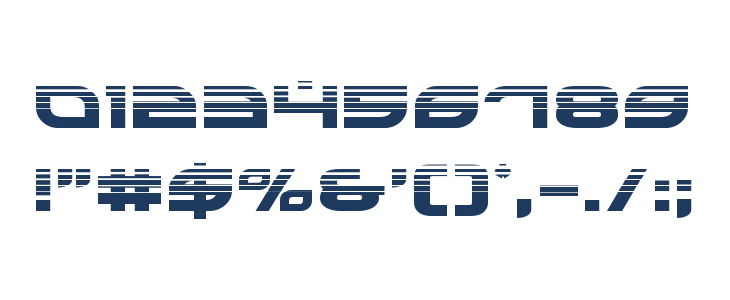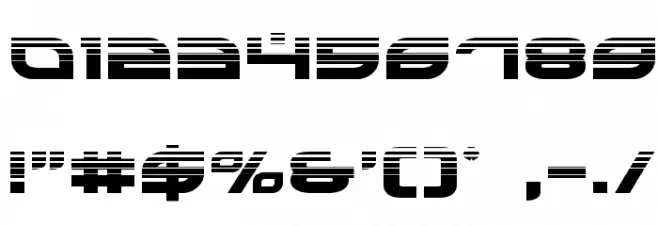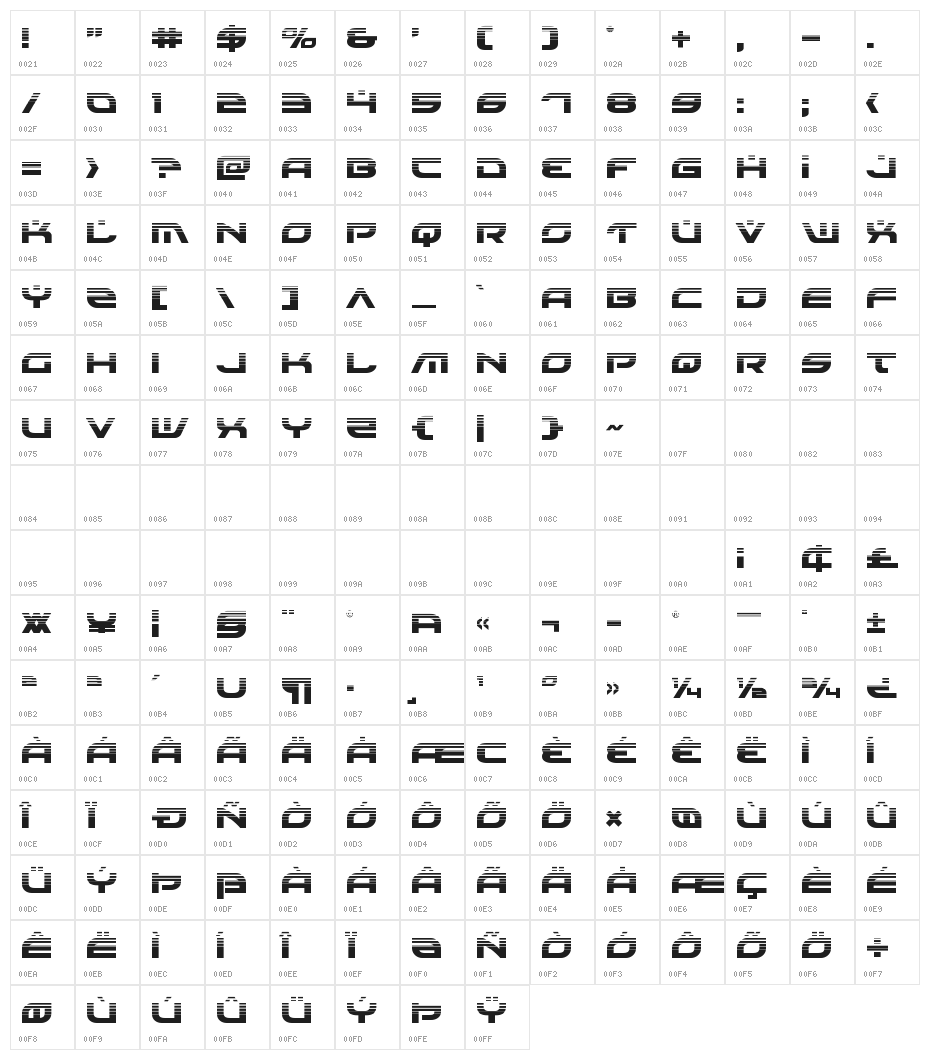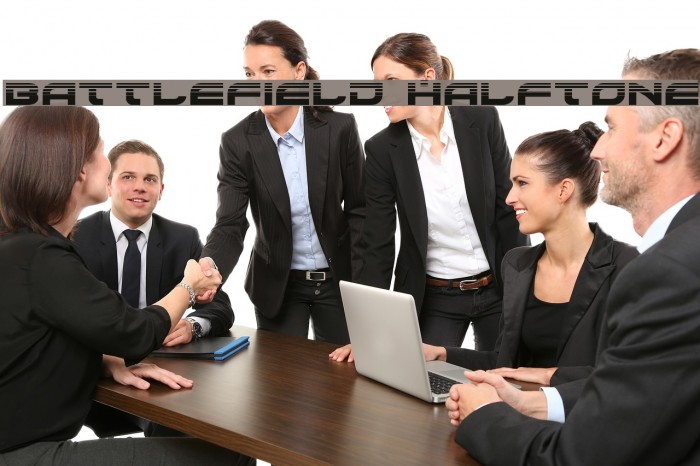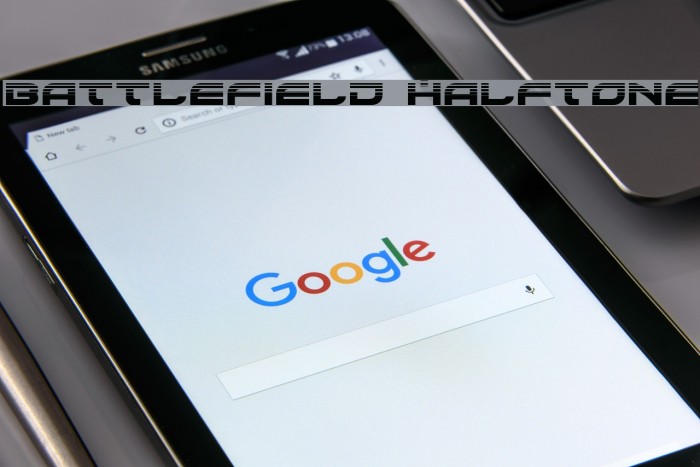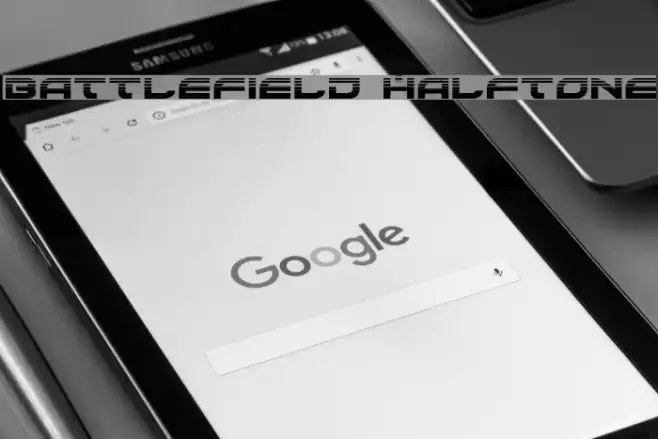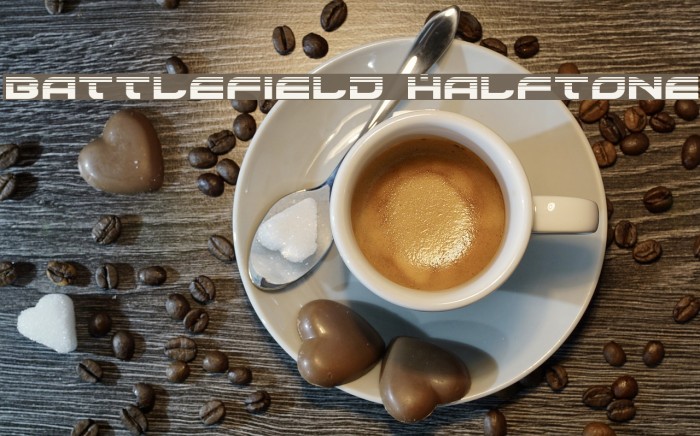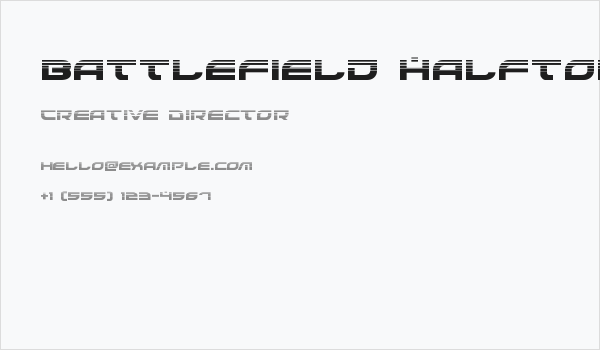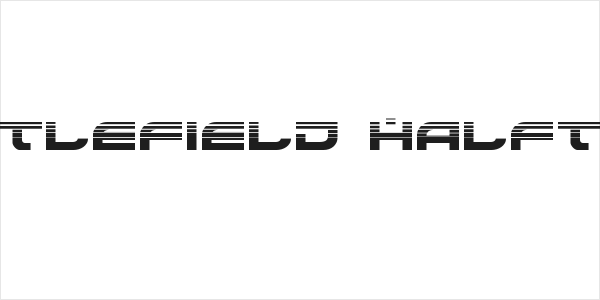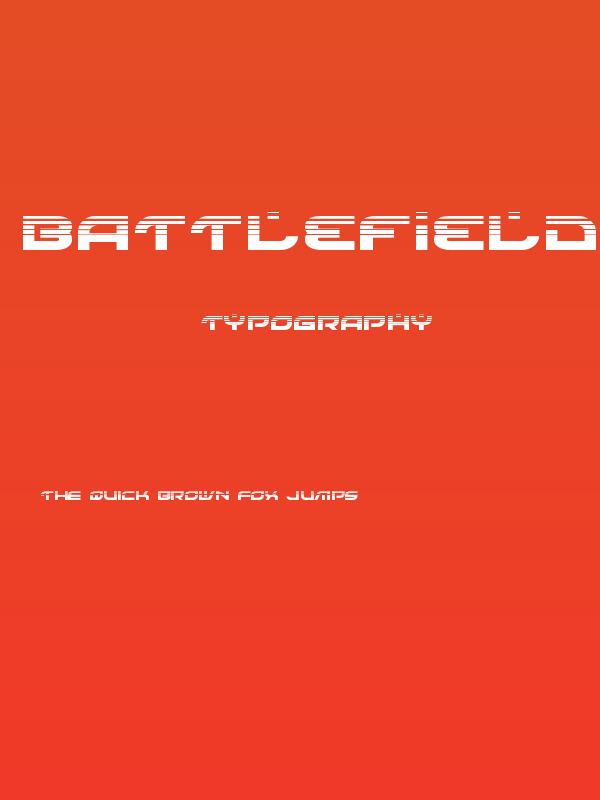
Battlefield Halftone Font
Battlefield Halftone Description
This font features a bold, futuristic design with a halftone effect that gives it a unique, digital appearance. The characters are constructed with solid, geometric shapes, interspersed with horizontal lines that create a sense of movement and modernity. The uppercase and lowercase letters maintain a consistent style, with sharp angles and a strong presence. Numbers and special characters are equally bold, ensuring uniformity across all text elements. This font is ideal for projects that require a modern, tech-inspired aesthetic.
| Proposed Projects | Ideal for technology branding, video game titles, sci-fi posters, and digital media. |